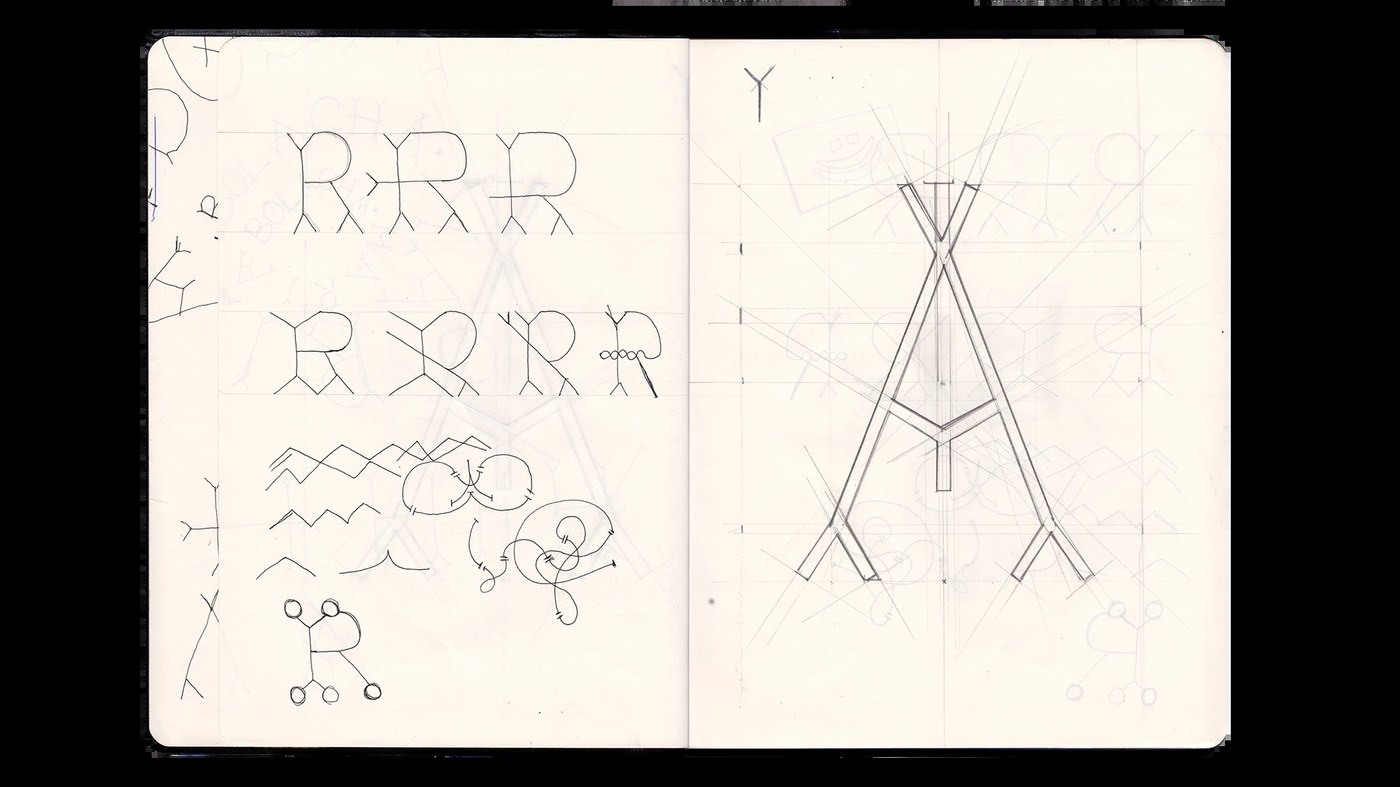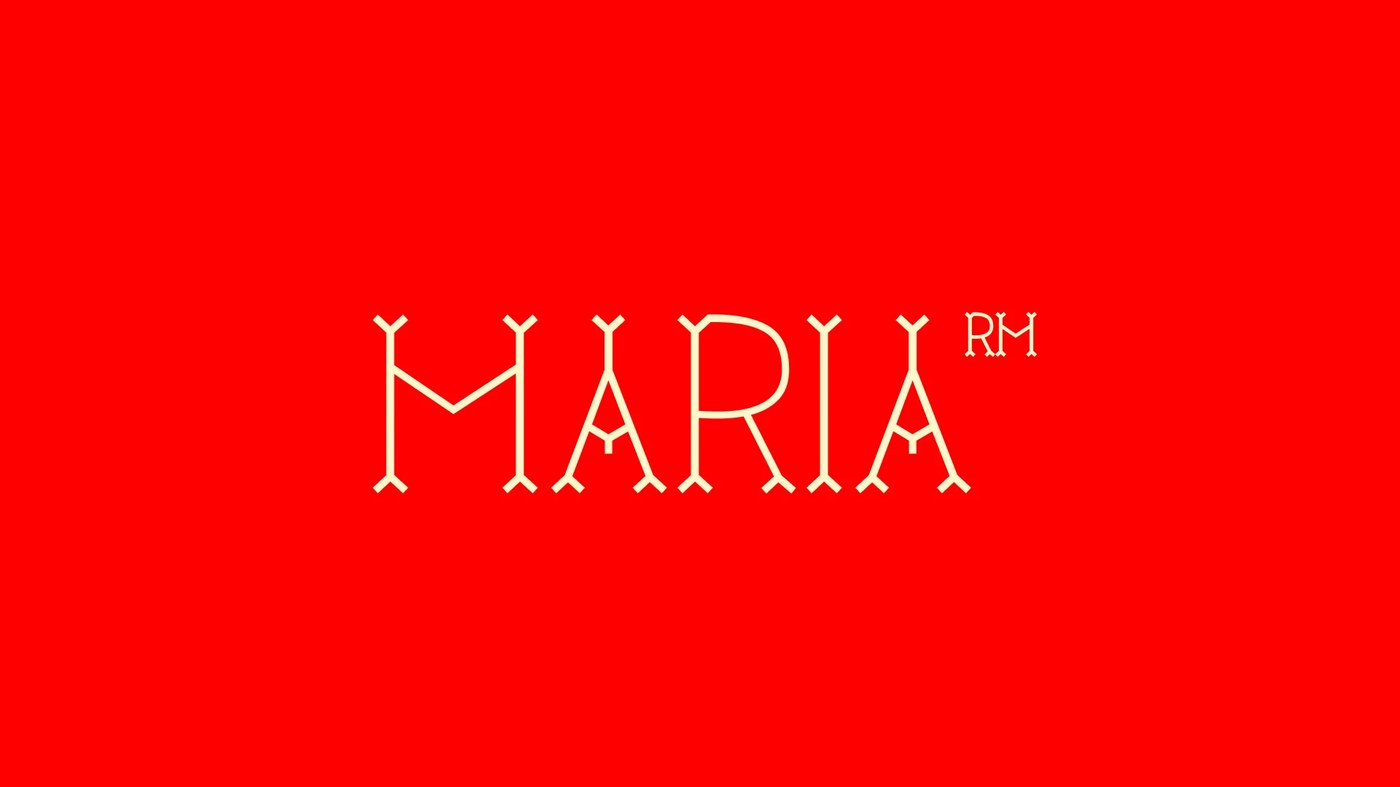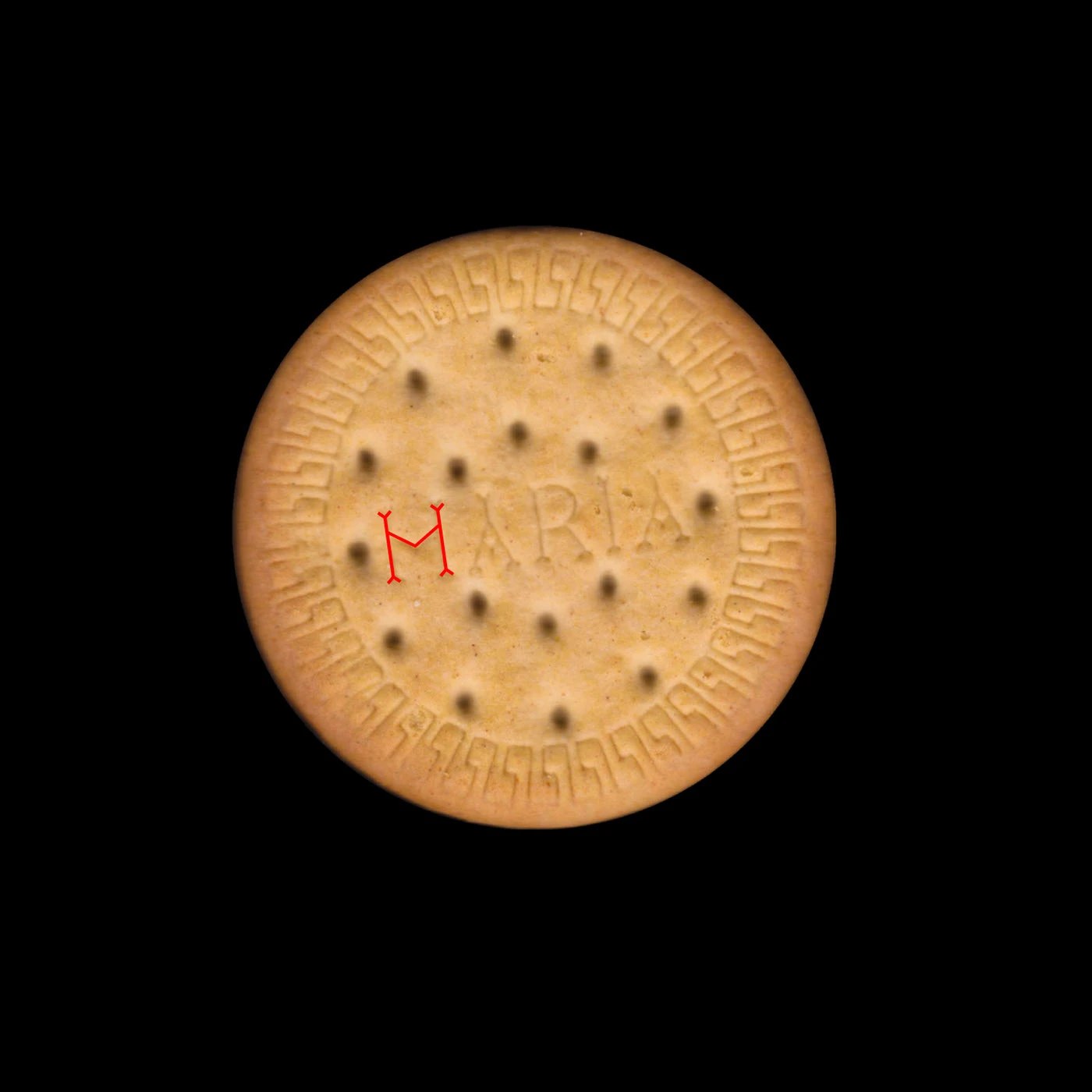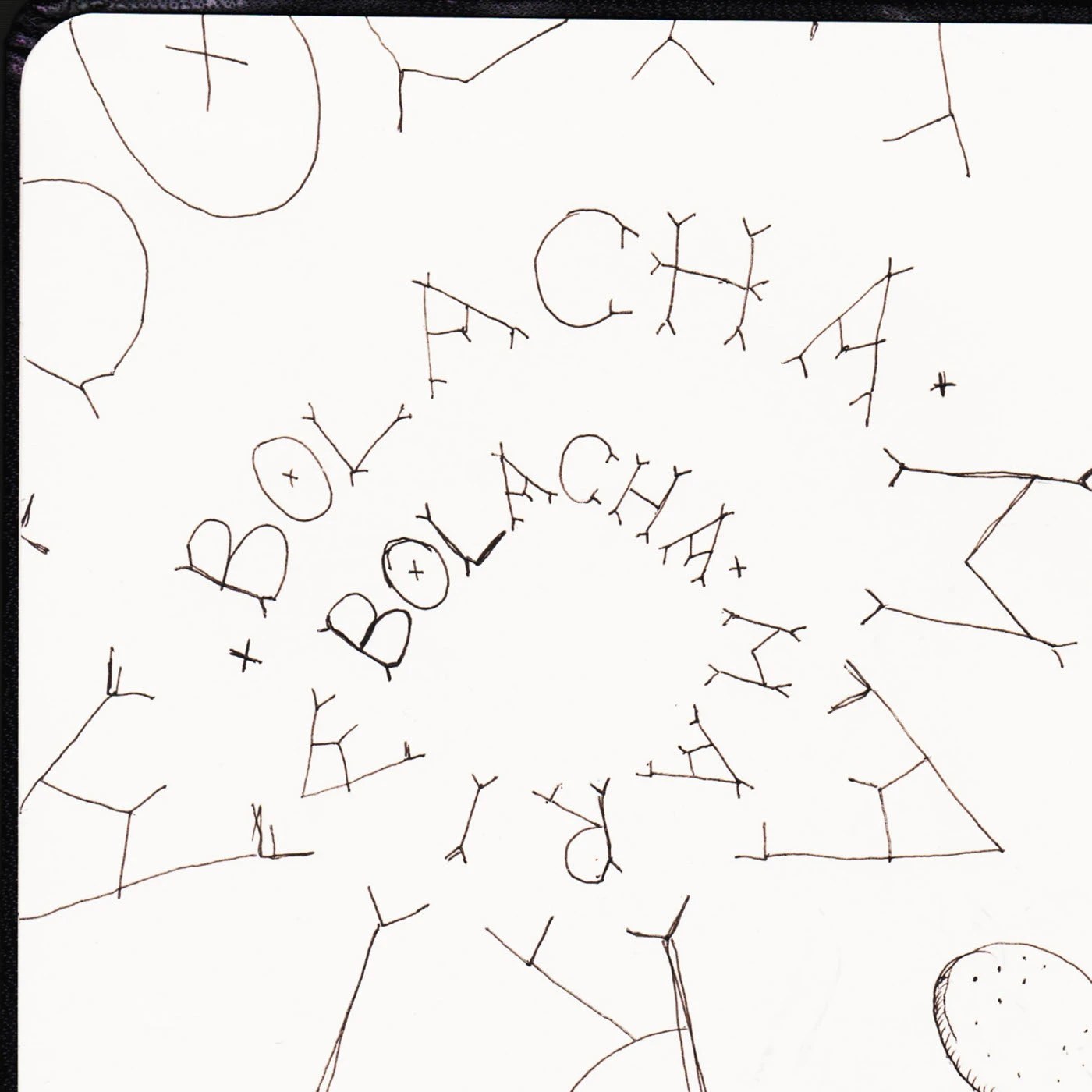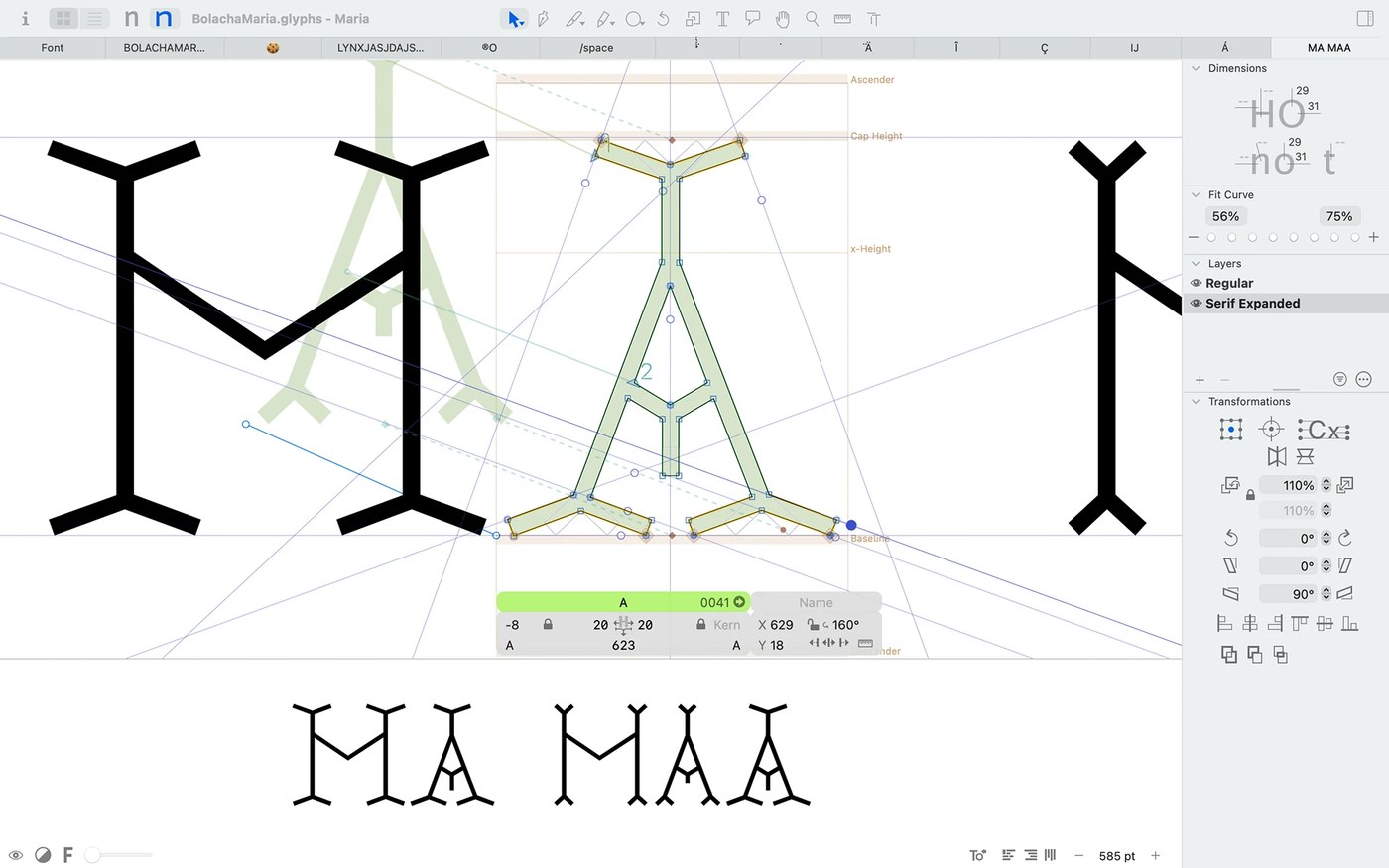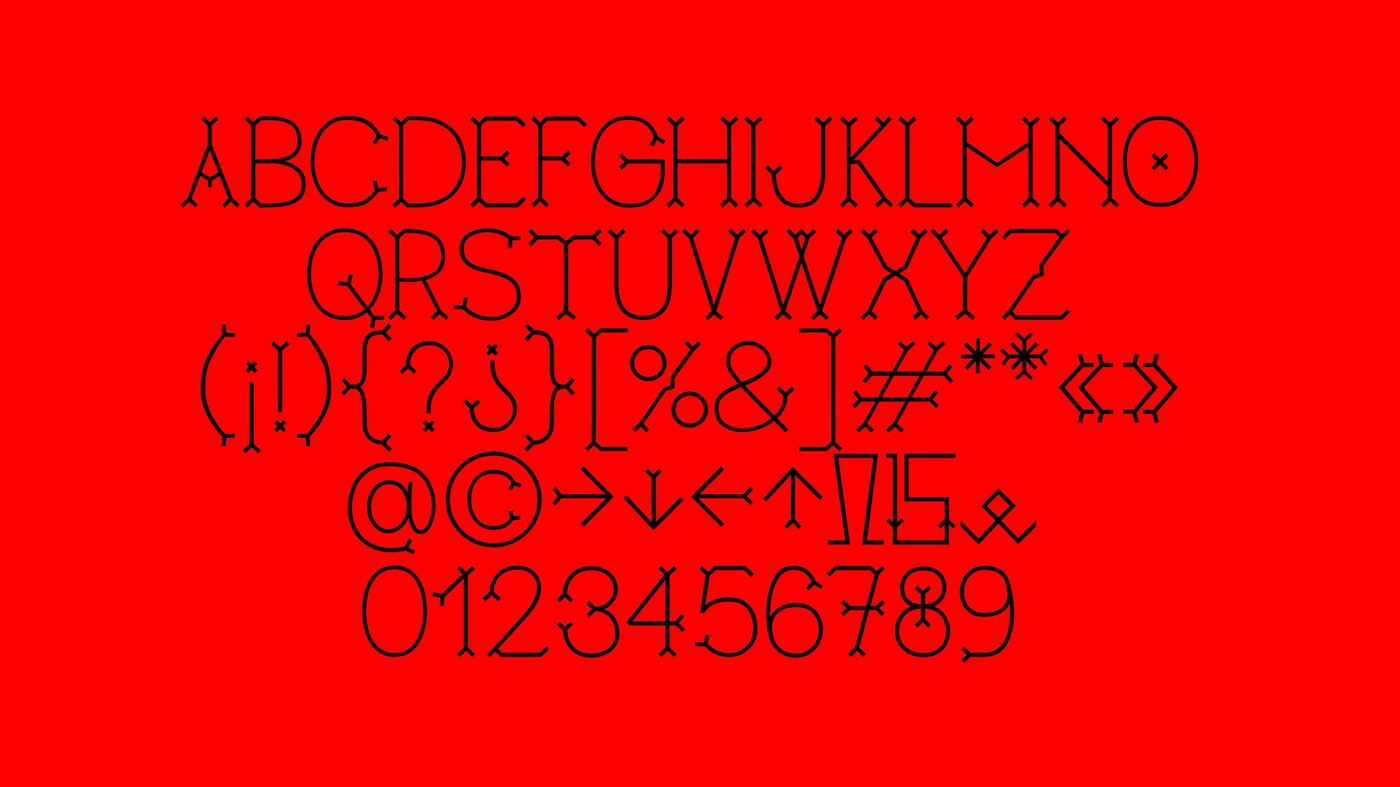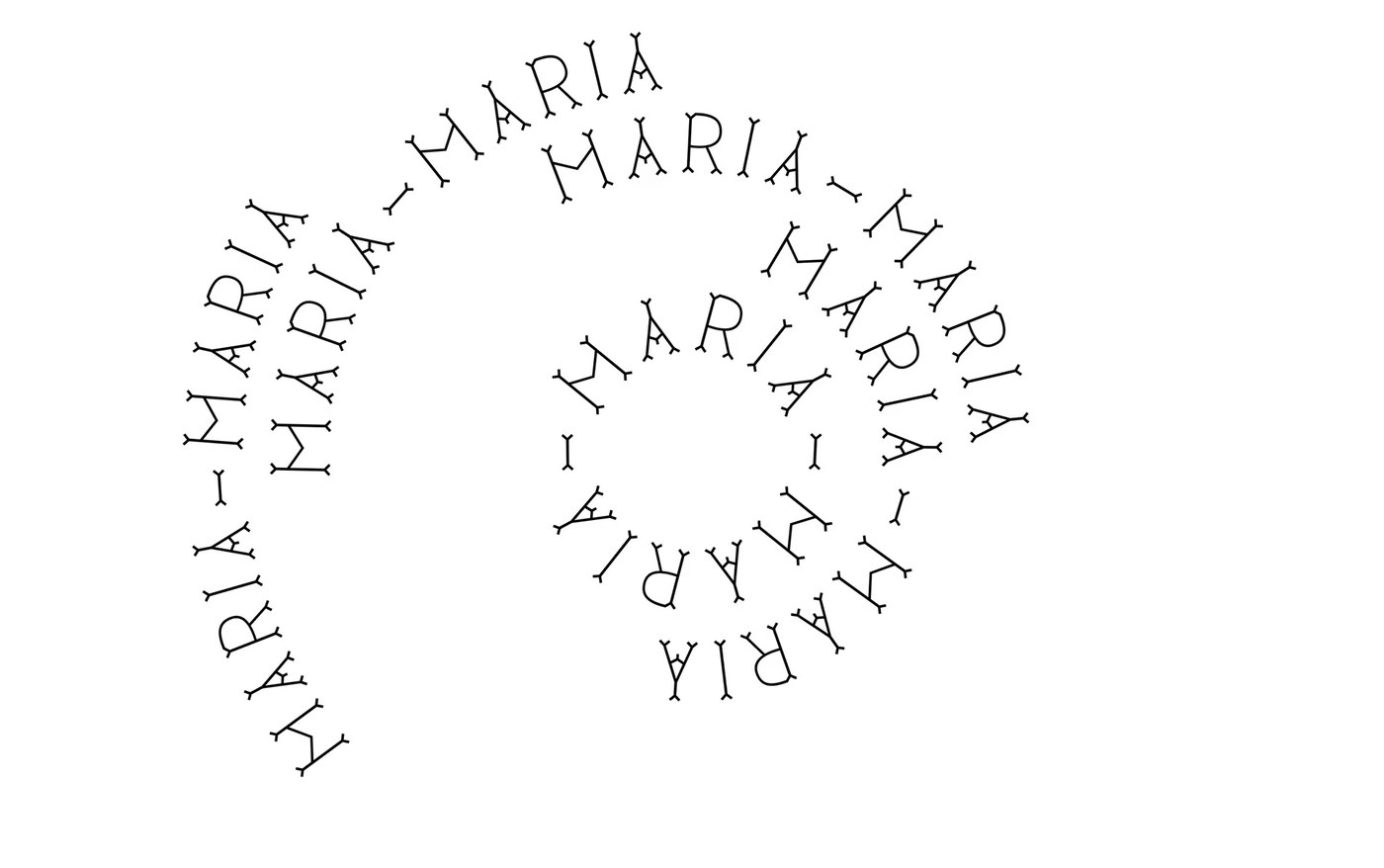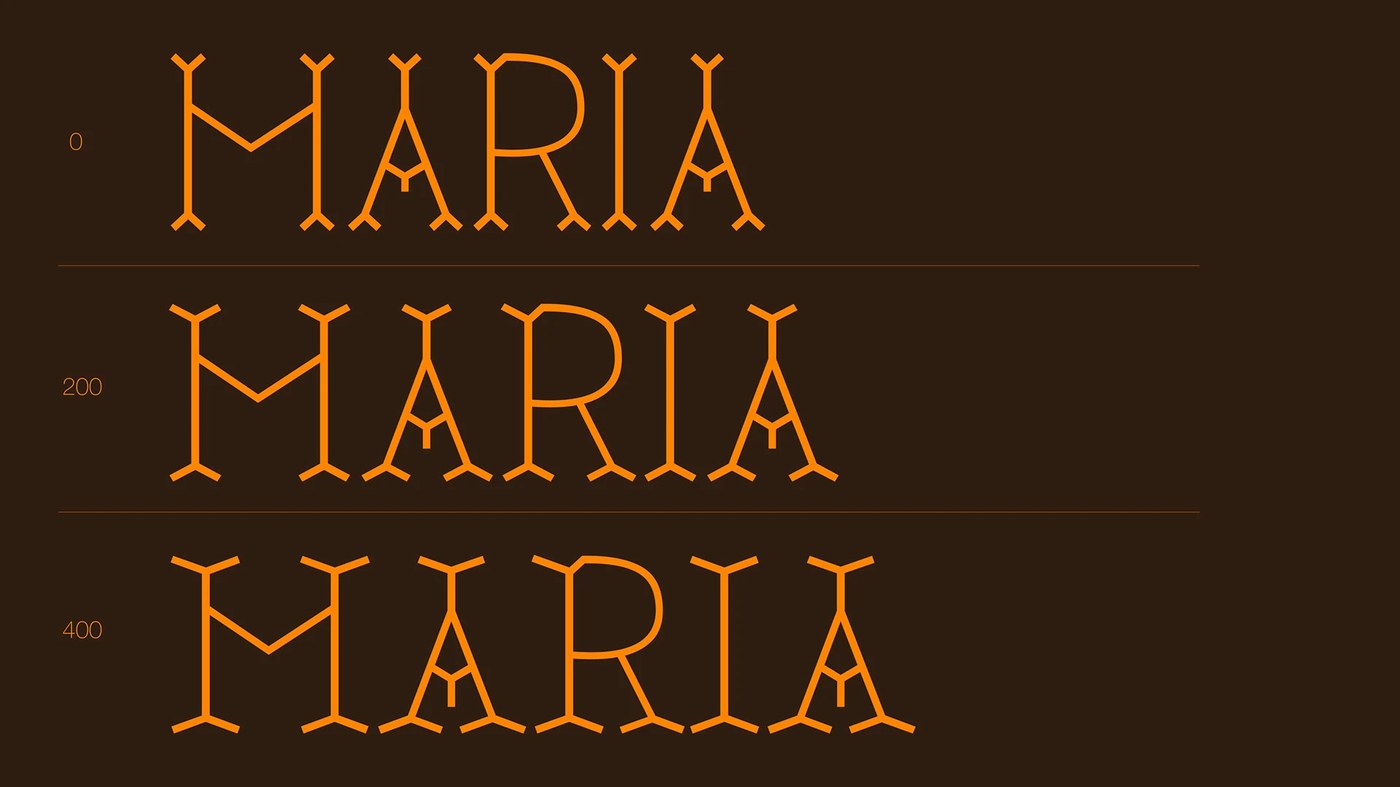
On August 27, 2026, the design world witnessed the official release of Maria RM, an innovative variable typeface conceived by designer Rui Marques and distributed through the independent Bad Quality Type foundry. This ambitious project transcends traditional typographic design by drawing profound inspiration from an unexpected source: the humble Maria biscuit. What began as a personal exploration into the distinctive relief letterforms embossed on this ubiquitous culinary artifact has culminated in a sophisticated, expressive typeface system featuring uniquely choreographed variable-width serifs, poised to make a significant impact on contemporary branding and digital aesthetics.
The genesis of Maria RM is rooted in a meticulous study of a century-old design. The traditional Maria biscuit, a staple in many cultures globally, particularly across Europe, Latin America, and parts of Asia, features five distinct letterforms embossed directly onto its surface. These seemingly simple, industrial-era characters possess a vernacular charm and historical resonance that Marques meticulously extracted. His vision, however, extended far beyond a mere static revival. Instead, Marques embarked on a journey to transform these historical shapes into a dynamic, adaptable variable typeface, exploring the fluidity of variable-width serifs that transition seamlessly across multiple optical axes. This innovative approach generates a rhythmic, almost dance-like movement between characters, imbuing the entire glyph set with an idiosyncratic personality that simultaneously honors its bakery heritage and propels it into the future of typographic expression.
The Evolution of a Culinary Icon into a Typographic Masterpiece
The Maria biscuit itself carries a rich history, dating back to 1874 when it was created by the British bakery Peek Freans to commemorate the marriage of Grand Duchess Maria Alexandrovna of Russia to Prince Alfred, Duke of Edinburgh. Its simple, round shape, often adorned with a decorative border and its namesake imprinted letters, quickly made it a global phenomenon. It became a symbol of economic recovery in post-war Europe and remains a beloved, affordable staple. Marques’s decision to elevate these industrially stamped letters into a comprehensive digital font system speaks to a broader trend in design: finding profound inspiration in everyday objects and vernacular aesthetics. This transformation highlights how elements often overlooked in their ubiquity can be reinterpreted through a contemporary lens, yielding powerful new tools for creative expression.
The project’s timeline saw Marques move from initial conceptual sketches and historical research into digital vectorization and parametric development. His "personal passion project" evolved through rigorous iterative design and technical refinement, addressing the complex challenges of translating a two-dimensional relief into a fluid, multi-axis variable font. The ultimate release through Bad Quality Type, an independent foundry known for fostering experimental and high-quality type designs, underscores the typeface’s artistic merit and its potential to push the boundaries of current typographic practices.
Choreographed Serifs: A New Language of Typographic Dynamics
At the heart of Maria RM’s innovation lies its "choreographed serifs." Unlike static typefaces where serifs are fixed, Maria RM employs variable axes that allow designers unprecedented control over the width, weight, and terminal flares of these foundational elements. This parametric adaptability enables the typeface to maintain structural integrity and legibility across a vast spectrum of applications, from compact, impactful headline lockups to expansive, intricate display poster grids. The interplay of high-contrast vertical stems with modulated serifs that flare outward creates a lively optical tension, giving the text a unique cadence and visual rhythm.
This design choice directly addresses a key advantage of variable fonts: efficiency and flexibility. Traditional font families often require multiple static files for different weights, widths, and styles. A variable font, conversely, houses all these variations within a single, compact file, allowing for infinite interpolation between predefined axes. For designers, this means greater creative freedom and precision, enabling real-time adjustments that were previously impossible without manual manipulation or swapping font files. Maria RM leverages this capability to not just offer stylistic variations but to integrate a unique, expressive quality through its dynamic serifs, making it a standout in the evolving landscape of variable typography.
Technical Craftsmanship and Versatile Applications
The glyph construction of Maria RM is a testament to Marques’s ability to balance the tactile, almost imperfect quirks of industrial biscuit stamping with the exacting precision of digital vector craftsmanship. The typeface features deep ink traps, exaggerated bracketed curves, and tight kerning pairs, all meticulously engineered to ensure sharpness and legibility across diverse media. Ink traps, traditionally designed to prevent ink from pooling in tight corners during printing, are here exaggerated for aesthetic effect, adding to the typeface’s distinct character. Similarly, the pronounced bracketed curves contribute to its expressive personality, while tight kerning ensures harmonious spacing between characters, crucial for both legibility and visual impact.
Maria RM Variable Typeface: Biscuit Lettering to Display Craft
This technical robustness ensures that Maria RM holds up remarkably well across a spectrum of high-impact applications. It is envisioned for use in editorial book covers, where its expressive serifs can convey narrative depth; in striking poster designs, where its legibility and unique character can command attention; and in packaging applications, where its origins in a culinary artifact lend it an authentic, compelling narrative. Its performance across both physical print collateral and high-resolution digital screens highlights its versatility and readiness for contemporary multi-platform branding strategies.
The Broader Impact of Variable Fonts in Modern Design
The emergence and increasing adoption of variable fonts, standardized under OpenType Font Variations by Adobe, Apple, Google, and Microsoft, represent a significant paradigm shift in typography since the advent of OpenType itself. While the concept of fluid type variations existed in precursors like Adobe’s Multiple Master fonts in the 1990s, OpenType Font Variations brought robust, browser-compatible implementation to the forefront. This technological leap allows for a single font file to contain an entire design space, offering designers unparalleled control over parameters like weight, width, slant, optical size, and even custom axes, as seen with Maria RM’s choreographed serifs.